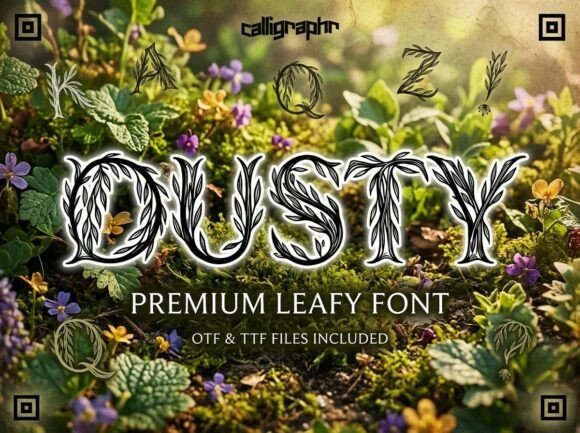
The Timeless Charm of Dusty Font: A Designer’s Delight
I’ll never forget the time I was working on a branding project for a high-end floral boutique. My client wanted a font that would evoke a sense of heritage and sophistication, but I was struggling to find the perfect fit. That’s when I stumbled upon Dusty Font, a stunning display typeface that would change the game for my project and, as I soon discovered, for many designers and crafters out there.
A Masterpiece of Texture and Elegance
Dusty Font is a true masterpiece, combining timeless artistry with organic texture to create a sophisticated display typeface that captures the essence of a “heritage-and-horticultural” soul. Its bold letterforms are masterfully constructed from a rhythmic tapestry of hand-drawn leaves and dense botanical engravings, mimicking the look of a classic woodcut.
What I Love About Dusty Font
- ✨ Unique Texture: The font’s organic texture gives it a distinctive, hand-crafted feel that’s perfect for high-end branding and packaging.
- ✅ High-Impact Legibility: Despite its bold and intricate design, Dusty Font remains surprisingly legible, even at smaller sizes.
- 💼 Versatility: This font is suitable for a wide range of applications, from floral branding and heritage logos to classic spirit labels and social media headers.
- 🎨 Artistic Flair: Dusty Font’s illustrative weight and prestigious personality make it perfect for designers looking to add a touch of elegance and sophistication to their work.
While Dusty Font is an exceptional typeface, it’s not without its quirks. Here are a few things to keep in mind:
- 🤔 Glyph Overload: With so many intricate details and glyphs to explore, it can be overwhelming to navigate the font’s full range of features.
- ⚠️ Font Size Limitations: Due to its bold and detailed design, Dusty Font may not be suitable for very small font sizes or body text.
The Story Behind Dusty Font
According to its creators, Dusty Font was inspired by the classic botanical engravings of 18th-century Europe. The designers wanted to capture the essence of these timeless illustrations and translate them into a modern, versatile typeface. The result is a font that’s both nostalgic and cutting-edge, perfect for designers looking to add a touch of heritage and sophistication to their work.
| Font Name | Dusty Font |
| Author | Creativeguru |
| What makes Dusty Font unique? | Dusty Font’s unique blend of organic texture, bold letterforms, and intricate details sets it apart from other typefaces. |
| Is Dusty Font suitable for body text? | While Dusty Font is primarily designed for display purposes, it can be used for body text in certain contexts. However, its bold and detailed design may not be suitable for very small font sizes or extensive blocks of text. |